There are at least two ways to switch away from the new Aptos fonts in Microsoft Word and back to the old Calibri fonts or something else.
Microsoft has forced a change to Aptos as the new default font in Word but that change doesn’t suit everyone. In particular, Aptos doesn’t make much (or any) visible difference for bold text. Both these paragraphs have the word ‘fight’ in bold but that doesn’t appear in the Aptos version.
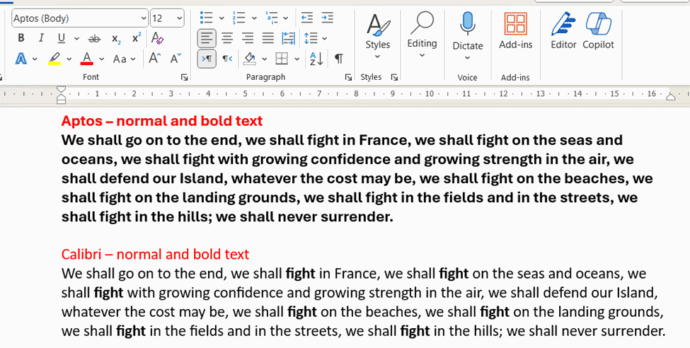
It’s the same problem in Outlook but you can change away from Aptos font.
Office 2013-2022 Theme uses Calibri font for text and Calibri Light for headings.